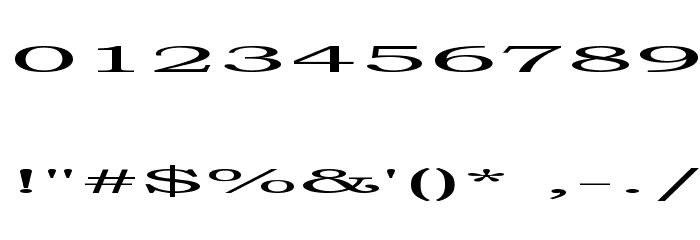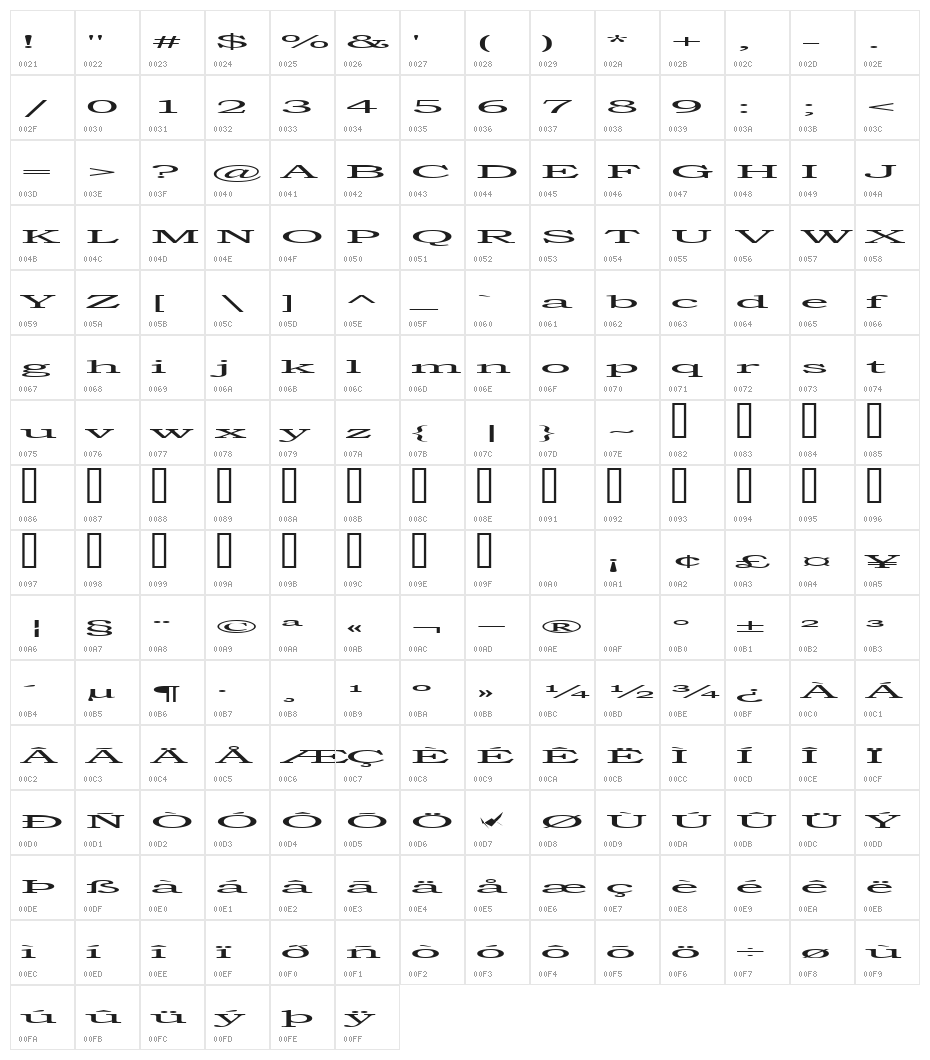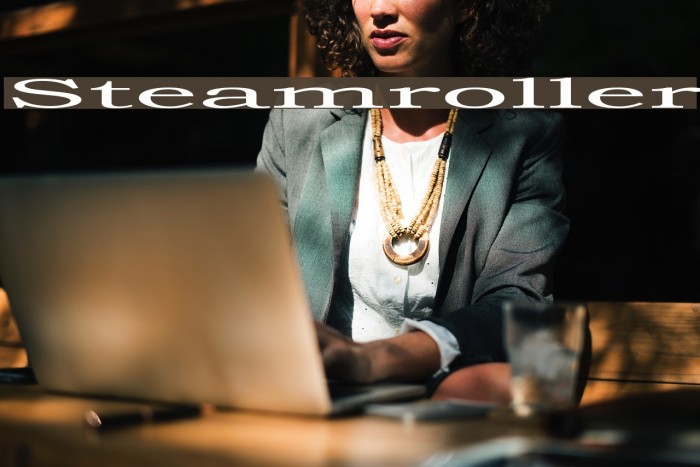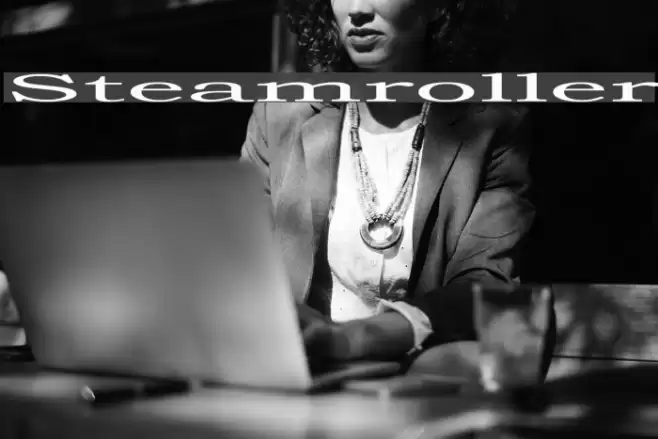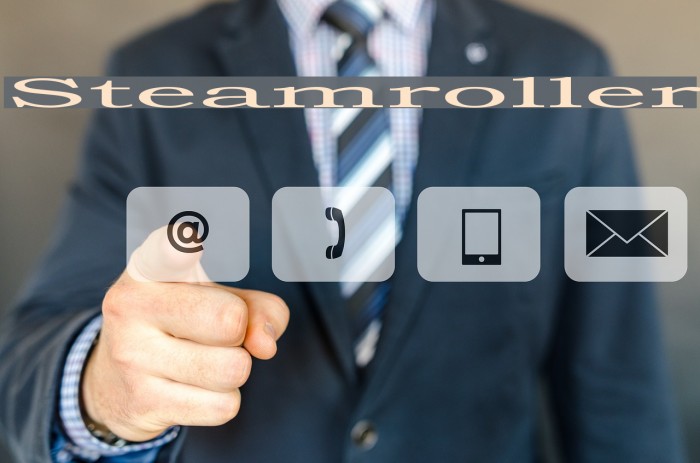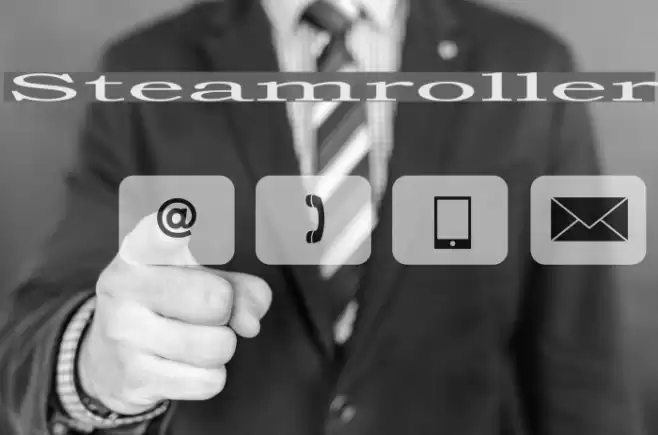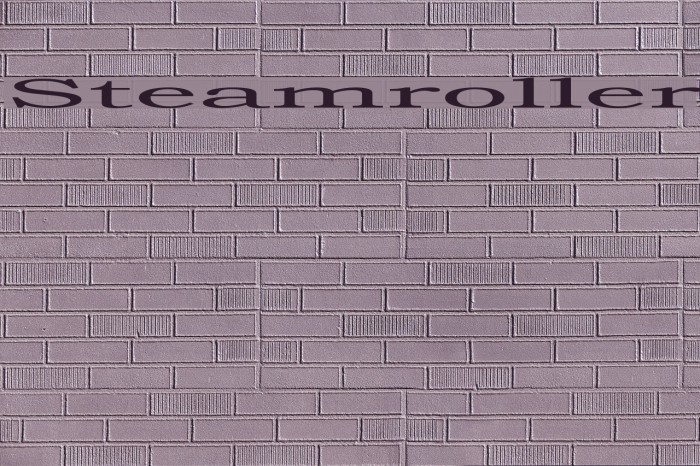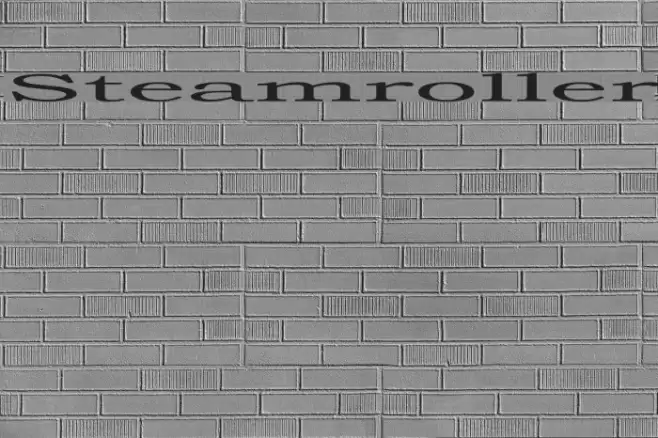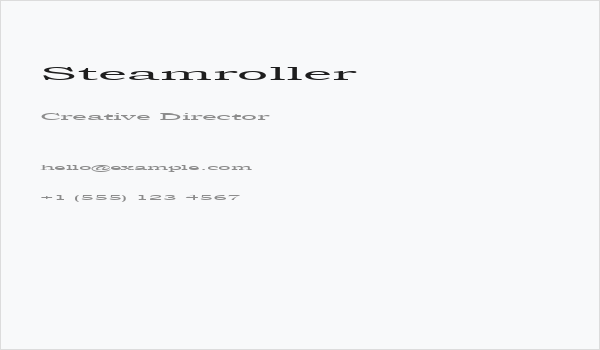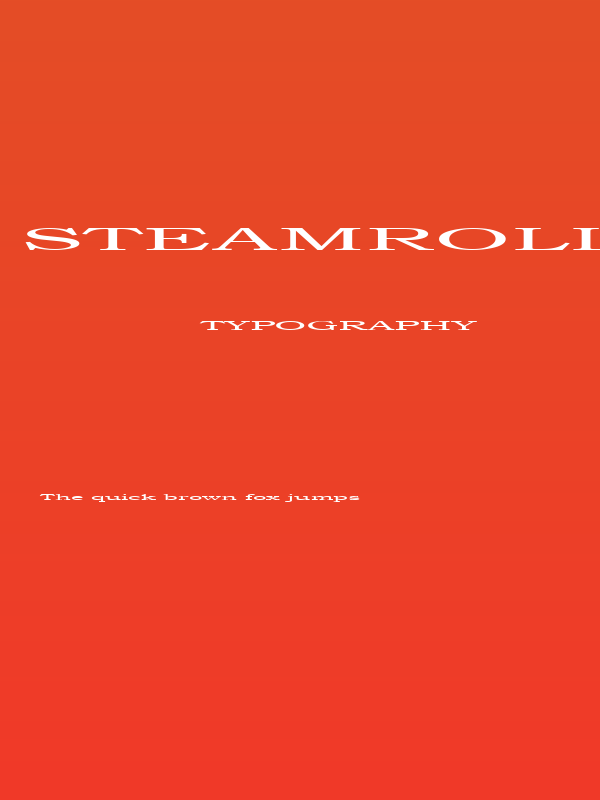
Steamroller Font
Steamroller Description
This font features a classic serif style with elegant, sweeping curves and sharp, defined edges. The uppercase letters are bold and commanding, while the lowercase letters maintain a refined and sophisticated appearance. The numerals are clear and easily readable, with a consistent weight that matches the alphabetic characters. Special characters are designed with the same attention to detail, ensuring a cohesive look across all glyphs. The overall design is reminiscent of traditional serif fonts, offering a timeless and professional aesthetic.
| Proposed Projects | Ideal for use in editorial design, book covers, formal invitations, and branding projects that require a touch of elegance and tradition. |